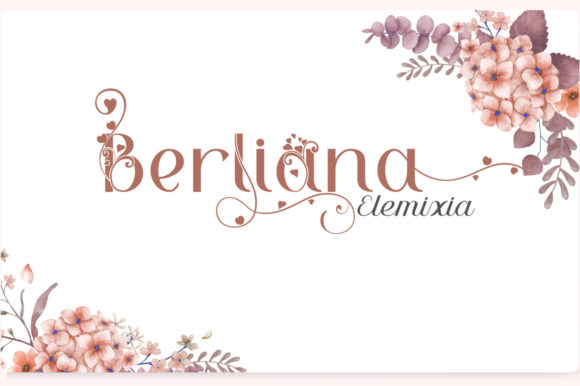
Journey into the realm of sophistication and grace with Berliana Elemixia Font, a display typeface that exudes elegance and charm. Crafted by the renowned Black Lotus, this font family is a modern masterpiece that elevates your designs to new heights.
Step into a world of endless possibilities with Berliana Elemixia, a versatile font that graces greeting cards, headlines, and everything in between. Its wide spectrum of applications makes it the perfect choice for designers seeking a font that adapts to their creative vision.
With its romantically inspired curves and impeccable detailing, Berliana Elemixia adds a touch of allure to your projects. Imagine your designs adorned with this font, captivating audiences with its timeless beauty. Dive into the world of Berliana Elemixia and let your creativity flourish.